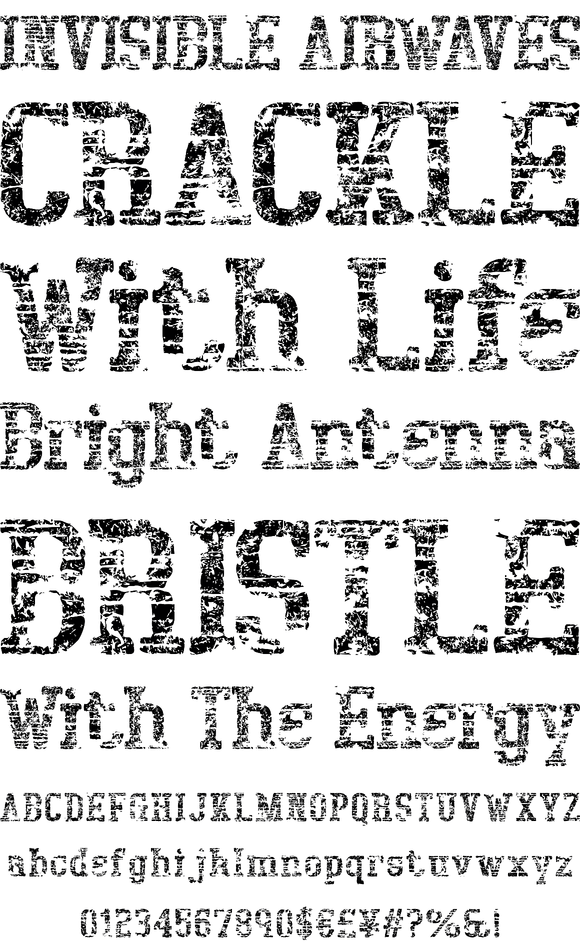
Bigboy is a slab serif design based on the old american signs of the midwest. This design is a condensed, heavy font that is well suited for use in large point sizes but remains legible for smaller text settings.
Bigboy is a slab serif design based on the old american signs of the midwest. This design is a condensed, heavy font that is well suited for use in large point sizes but remains legible for smaller text settings. A second version of Bigboy is available as a weathered, grunged version. But rather than feature one definitive style, Bigboy is featured as 5 evolutive fonts, ranging from the Forties that is lightly trashed, to the Eighties version that is severely eroded.